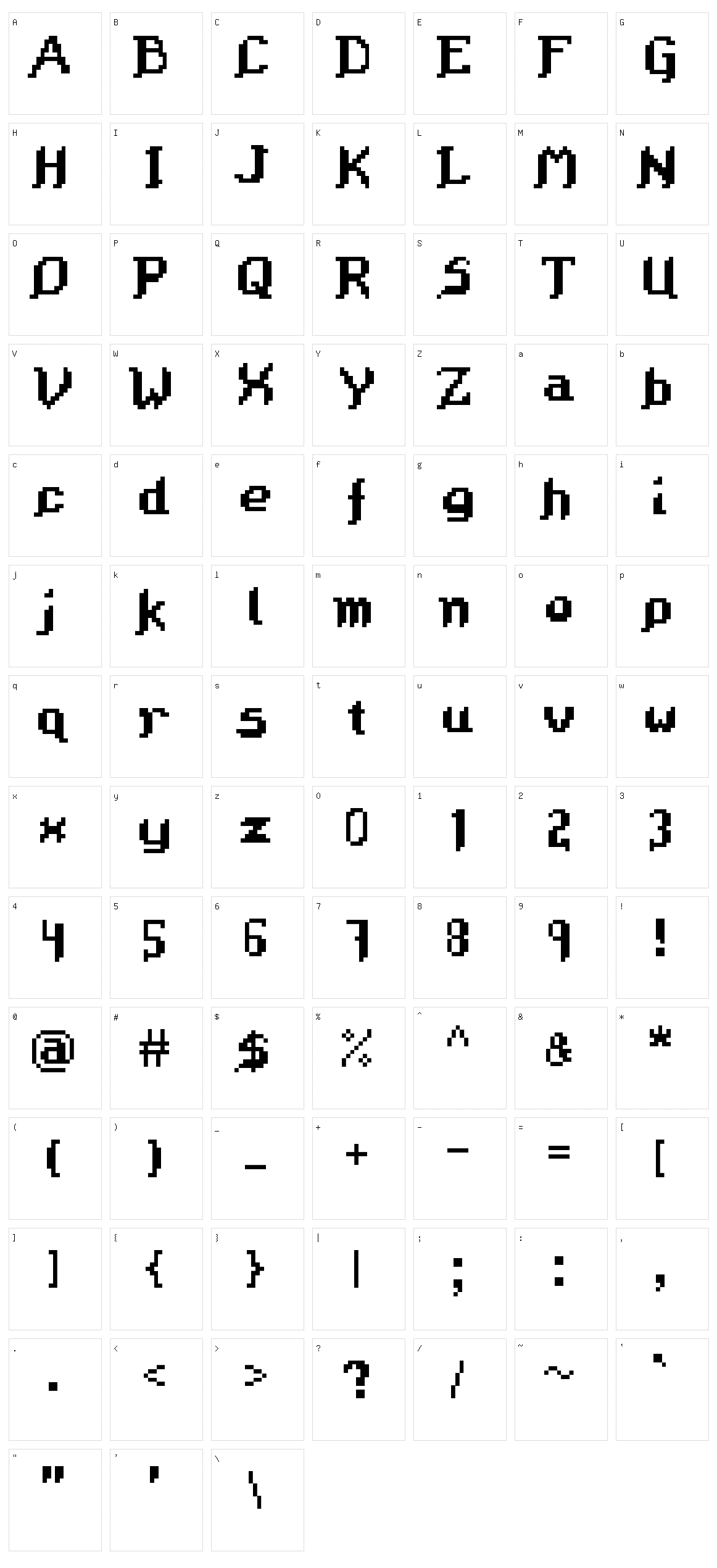
Octavius
Designed by: Brixdee
This font "Octavius" is created by Jack Oatley.
This font is inspired by the type in the game "The Settlers II", some characters are the originals and some have been edited or added. There are 2 versions here, a regualar one, and one with defined kerning to make the letters seem more "joined up".